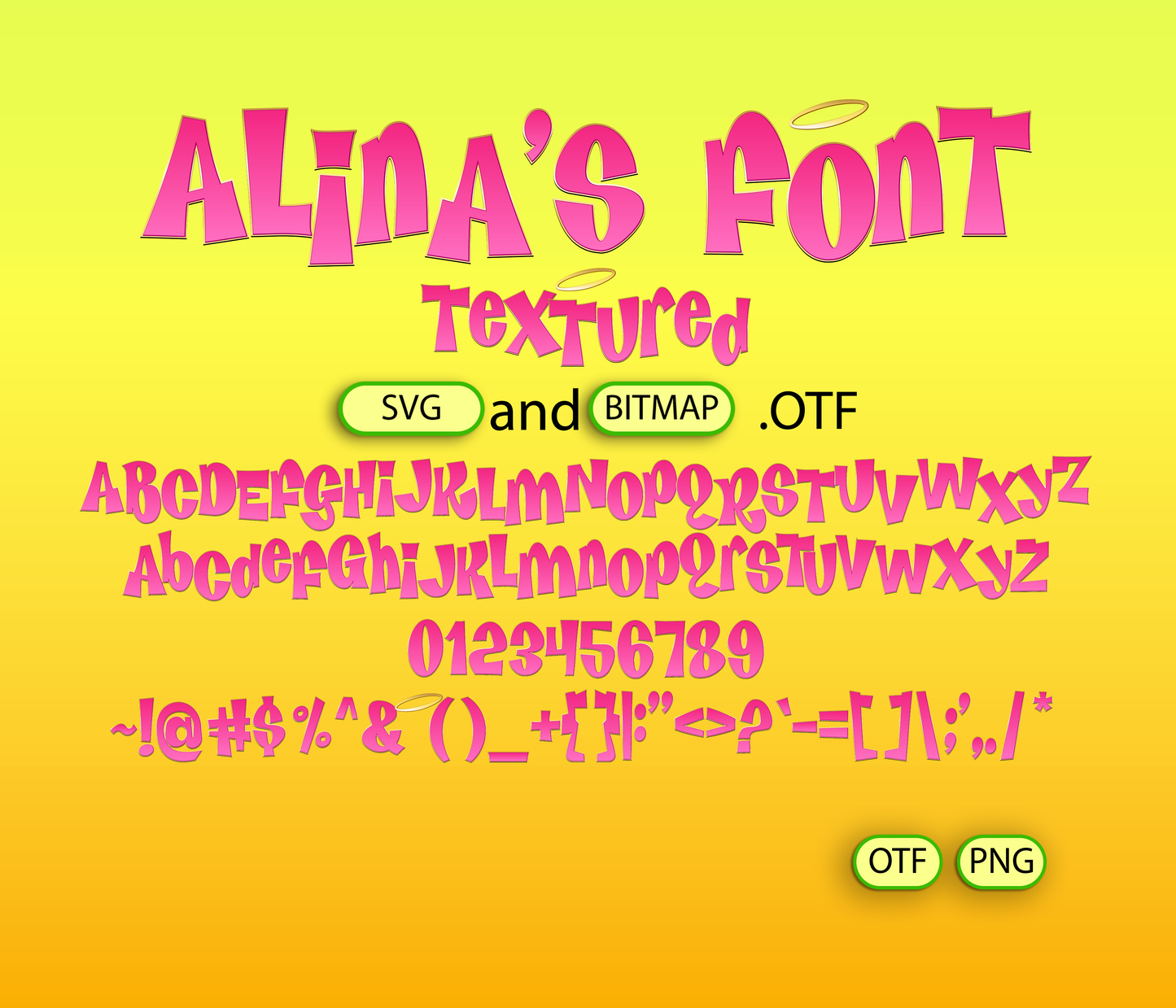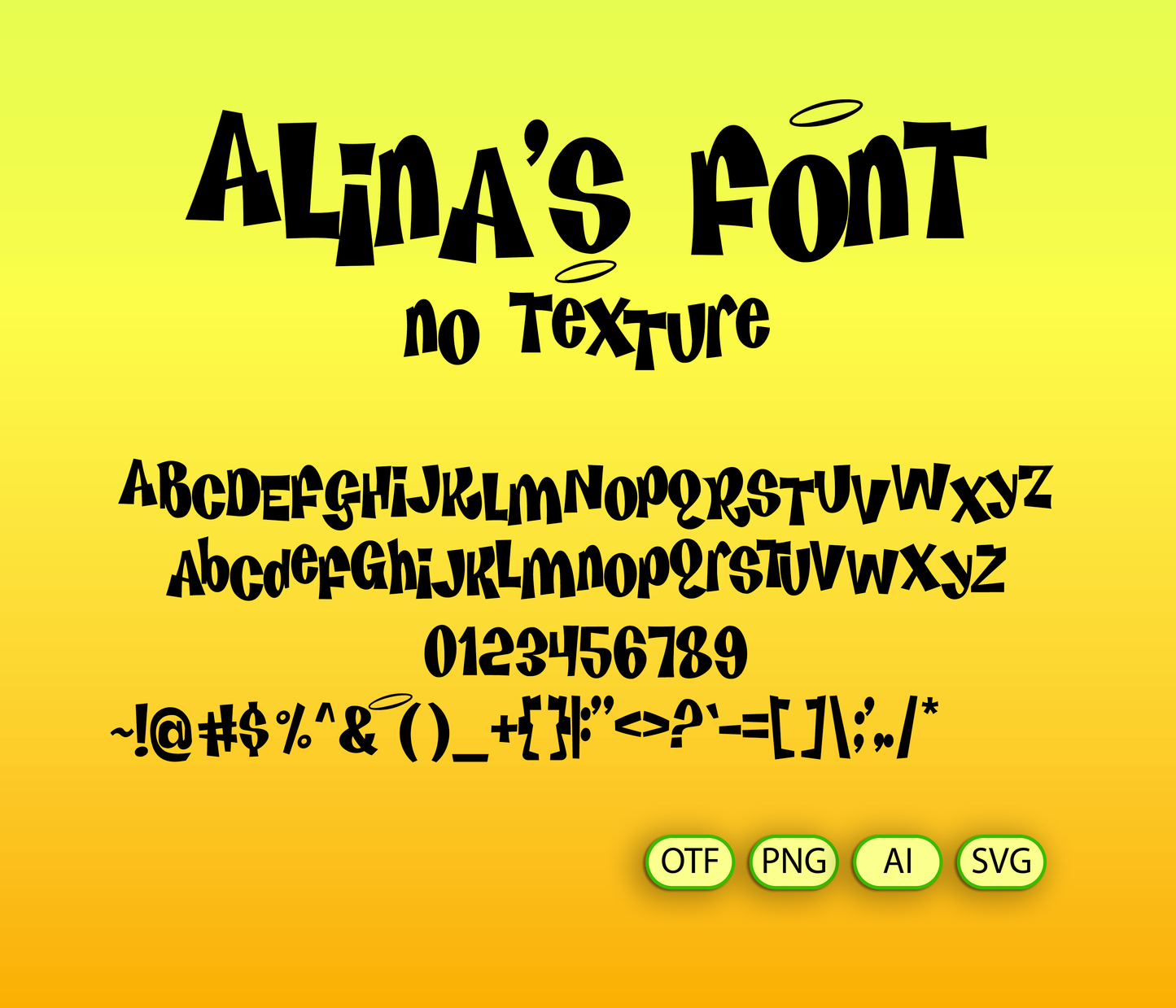
Glamour Doll Font Textured
Glamour Doll Typeface Textured
Step into the fabulous world of Y2K fashion and pop culture with our Glamour Doll Typeface, capturing the essence of bold style statements and millennial nostalgia. Perfect for fashion brands, beauty influencers, party planners, and creative professionals, this font brings the confident, trendy spirit of early 2000s glamour to your projects. Create eye-catching social media content, stylish branding, or digital designs with the vibrant, attitude-filled energy of pop culture icons and fashion-forward aesthetics.
- Our Glamour Doll Typeface features bold, fashion-forward shapes and playful characters reflecting the confident yet fun aesthetic of Y2K pop culture and doll-inspired design. Ideal for:
Our Glamour Doll Typeface includes textured and non-textured variants, ensuring compatibility with all software, including Canva. This feature allows easy incorporation into designs for users of all skill levels.